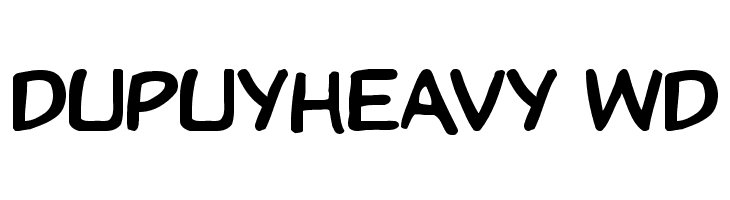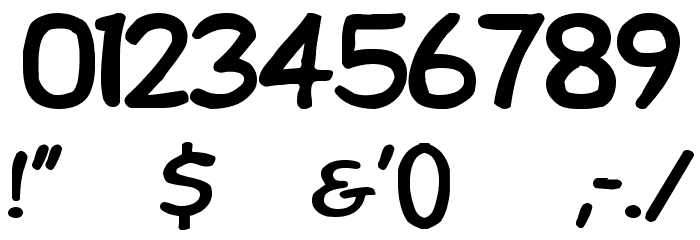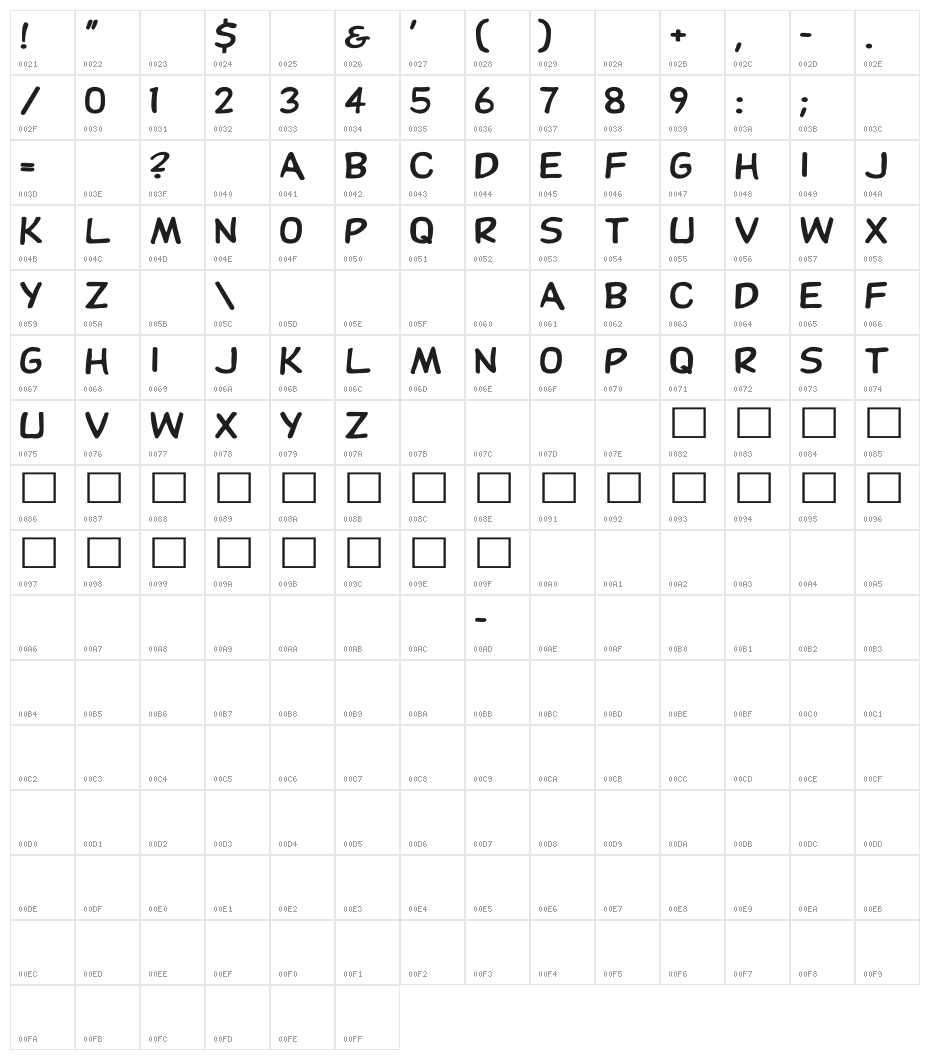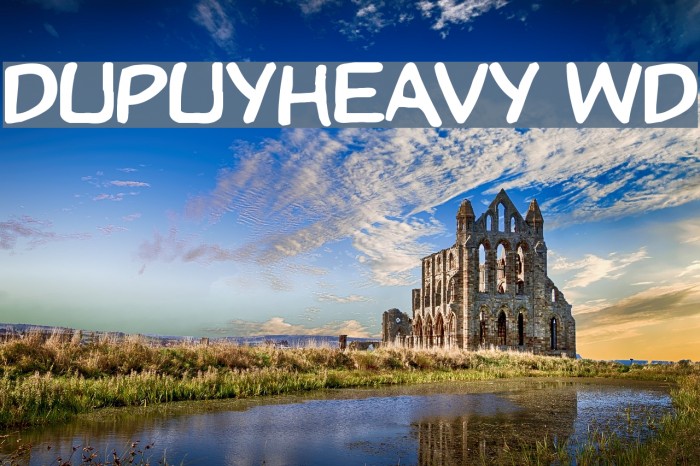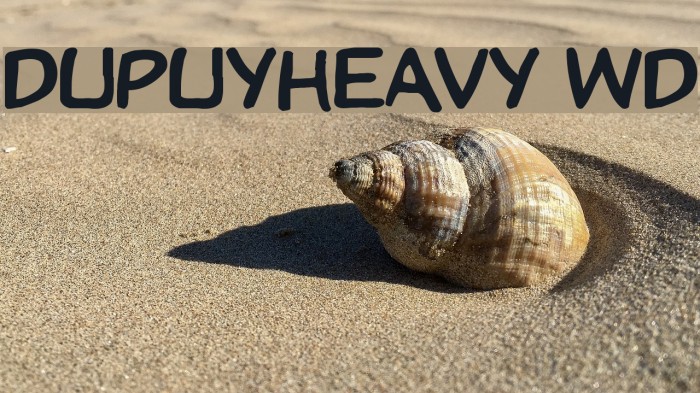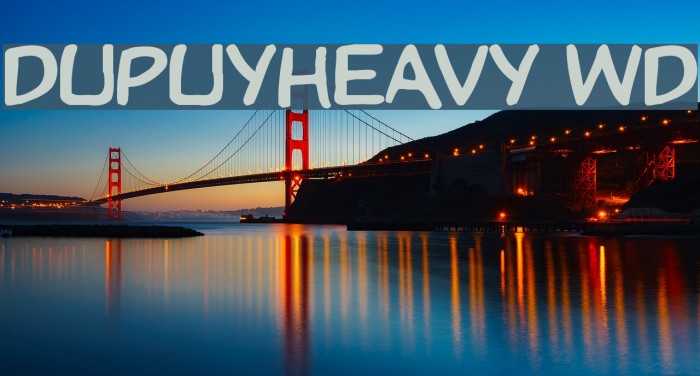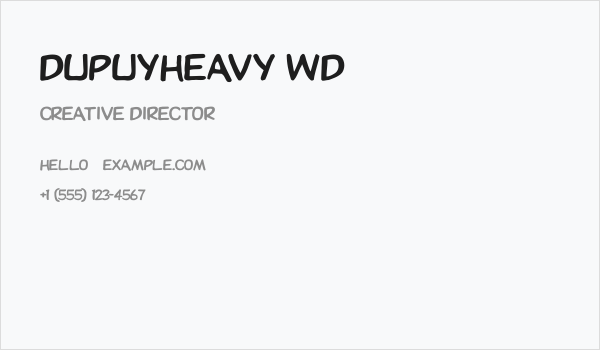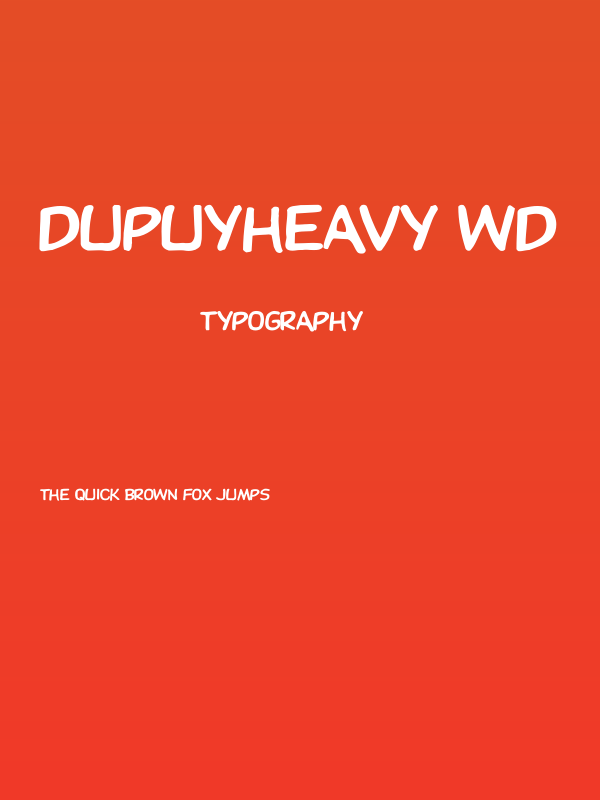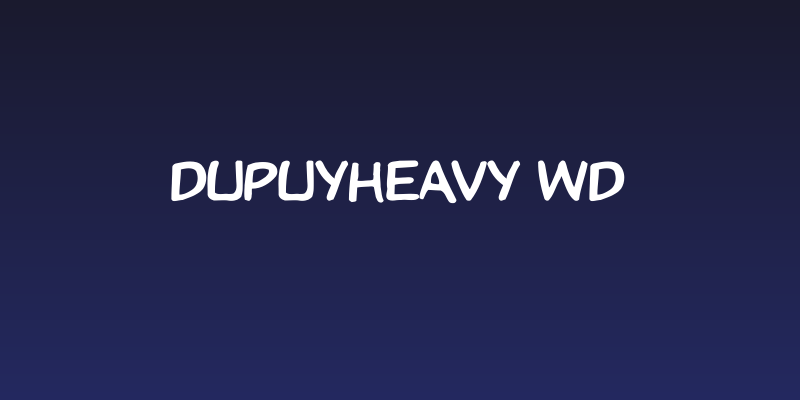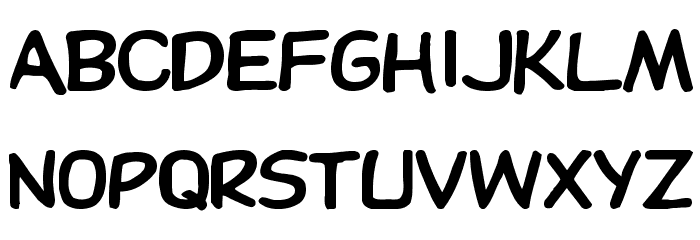
DupuyHeavy Wd Font
DupuyHeavy Wd Description
This font features a bold and playful design with rounded edges and a hand-drawn aesthetic. The characters are thick and slightly irregular, giving it a casual and friendly appearance. The uppercase and lowercase letters maintain consistent proportions, while the numerals are clear and easy to read. Special characters are uniquely styled, adding to the font's charm. Its overall look is informal yet impactful, making it suitable for creative and fun projects.
| Proposed Projects | Ideal for children's books, comic strips, playful branding, and casual invitations. |